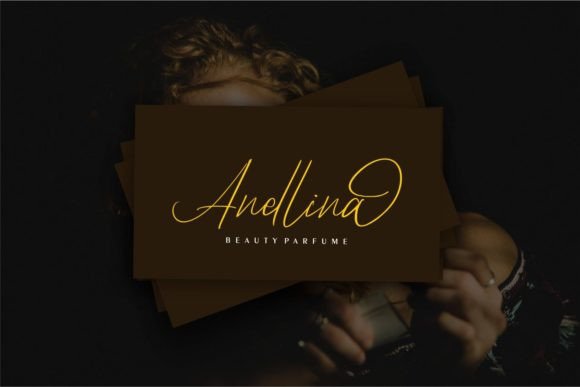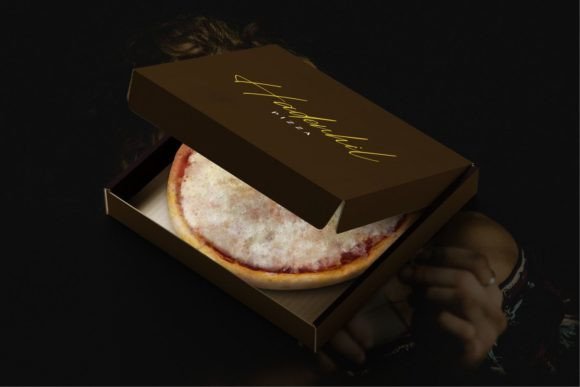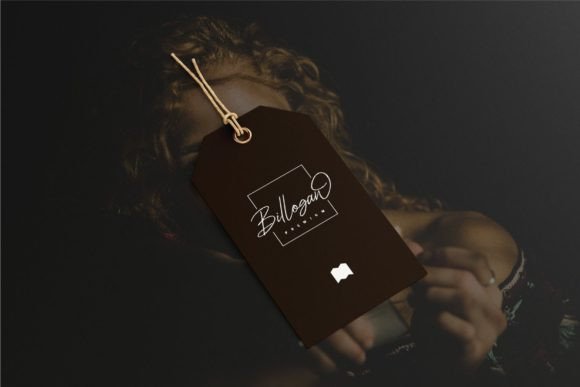
Introduction to Rolling Bellina Font
Remember that moment when you were brainstorming ideas for your next creative project, and you desperately needed the perfect font to give it that extra oomph? For many designers, finding the ideal script font can be a game-changer. That’s exactly what the Rolling Bellina Font offers – an enchanting handwritten font that’s perfect for adding a touch of romance to your designs.
Whether you’re working on a greeting card, a wedding invitation, or a headline, the Rolling Bellina Font is a valuable design resource that’s sure to elevate your project. With its high-quality design and versatility, this font is a must-have for any designer looking to add a personal touch to their work. And the best part? It’s available for free download, making it an accessible addition to your design arsenal.
With its transparent background and beautiful, flowing script, the Rolling Bellina Font is the perfect addition to any design project. Let’s take a closer look at what makes this font so special and how you can use it to take your designs to the next level.
Key Features of Rolling Bellina Font
- High-quality design resource ideal for creative projects requiring a unique, elegant touch
- Features a transparent background, allowing for seamless integration into various design contexts
- Includes a comprehensive character set, covering a wide range of languages and special characters
- Size: Includes 6 font weights, from Light to Bold, offering versatility for various design needs
- Perfect for designers seeking a high-quality, free design resource to elevate their creative projects
Honest Review: Rolling Bellina Font
I recently came across the Rolling Bellina Font and I must say, it’s a fantastic addition to any designer’s toolkit. As a design resource, it’s incredibly versatile and can be used for a wide range of creative projects.
- What works well:
- ✨ High-quality font with a unique and elegant design
The font has a transparent background, making it easy to use on any design element, from logos to typography-based designs.
- Limitations:
- ⚠️ Limited character set, may not be suitable for projects requiring extensive text
- ⚠️ Not ideal for designs requiring a bold or sans-serif font
Overall, I’m impressed with the Rolling Bellina Font and would highly recommend it to designers looking for a high-quality, free download font.
The Rolling Bellina Font is a free design resource ideal for creative projects requiring a high-quality, elegant font. With its transparent background, it’s perfect for overlaying on images or graphics.
Tips for Getting the Most Out of Rolling Bellina Font
For the best results, use the Rolling Bellina Font on a high-contrast background to make the text stand out.
Common Use Cases for Rolling Bellina Font
The Rolling Bellina Font is ideal for wedding invitations, birthday cards, and other creative projects requiring a touch of elegance and sophistication.
Comparison: Great Vibes Font is more elegant and refined compared to Rolling Bellina Font, making it suitable for formal designs and creative projects that require a touch of luxury.